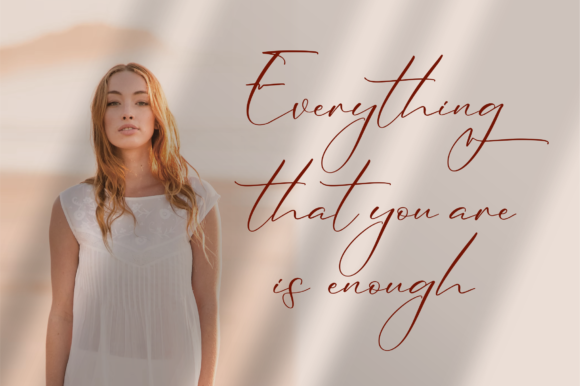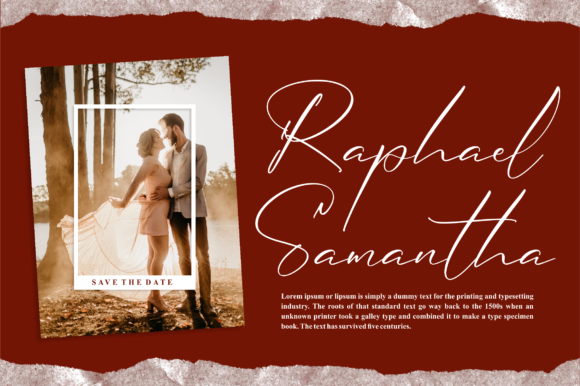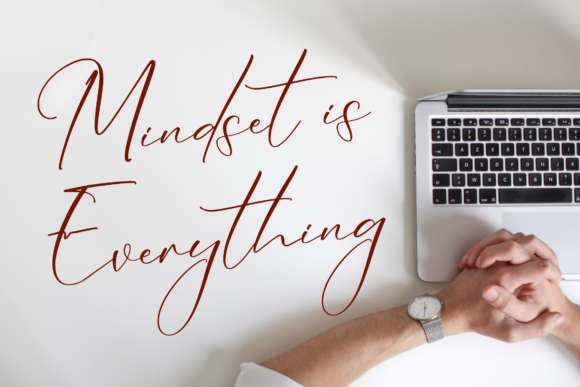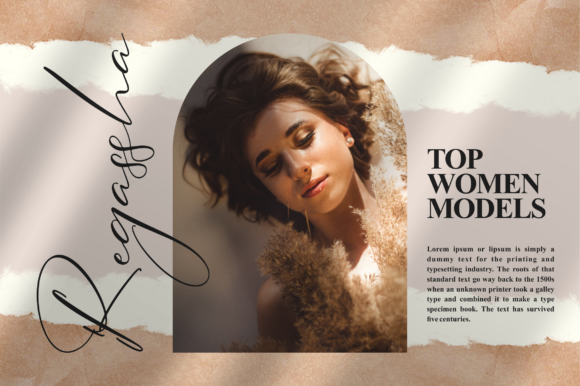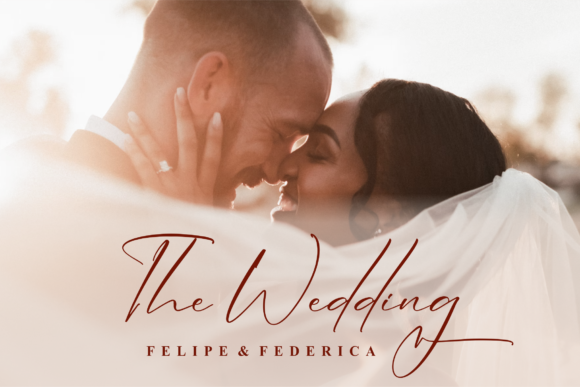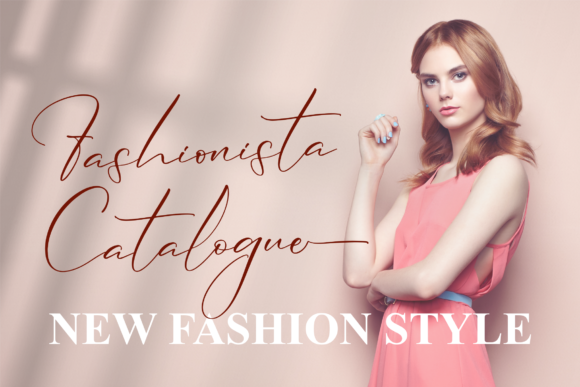
The Dignitale Font: A Timeless Beauty for Your Creative Projects
Have you ever been in the middle of a design project, pouring your heart and soul into it, when suddenly you realize that something is missing? For me, that something was a beautiful, elegant font that would bring my design to life. I was working on a wedding invitation project, and I wanted a font that would capture the essence of love, joy, and celebration. That’s when I stumbled upon the Dignitale font, and I knew I had found the perfect match.
A Personal Review: What I Love About Dignitale
The Dignitale font is an exquisite handwritten font that has become a true favorite of mine. Here are some things that I love about it:
- ✨ Classy calligraphic influences: Dignitale maintains its elegant, cursive feel while still feeling contemporary and fresh.
- ✅ PUA encoded: This font is PUA encoded, which means that I can access all of the glyphs and swashes with ease.
- 🎨 Versatile design: Dignitale is perfect for a variety of design projects, from wedding invitations to branding and packaging.
While I absolutely love the Dignitale font, there are a few small quirks to be aware of:
- 🤔 Glyph compatibility: Some glyphs may not work seamlessly with certain software or platforms. However, this is a minor issue that can be easily resolved with a little creativity and experimentation.
- ⚠️ Overuse: As with any font, it’s possible to overuse Dignitale. To avoid this, I like to mix and match it with other fonts to create visual interest.
The Backstory Behind Dignitale
The Dignitale font was designed by a talented typographer who wanted to create a beautiful, elegant font that would capture the essence of luxury and sophistication. The designer drew inspiration from traditional calligraphy and handwriting, combining classic techniques with modern digital tools to create a truly unique font.
| Font Name | Dignitale Font |
| Author | Letterfabric |
| What is the Dignitale font? | The Dignitale font is a beautiful, handwritten font that’s perfect for designs that require a touch of elegance and sophistication. |
| Is the Dignitale font PUA encoded? | Yes, the Dignitale font is PUA encoded, which means that you can access all of the glyphs and swashes with ease. |